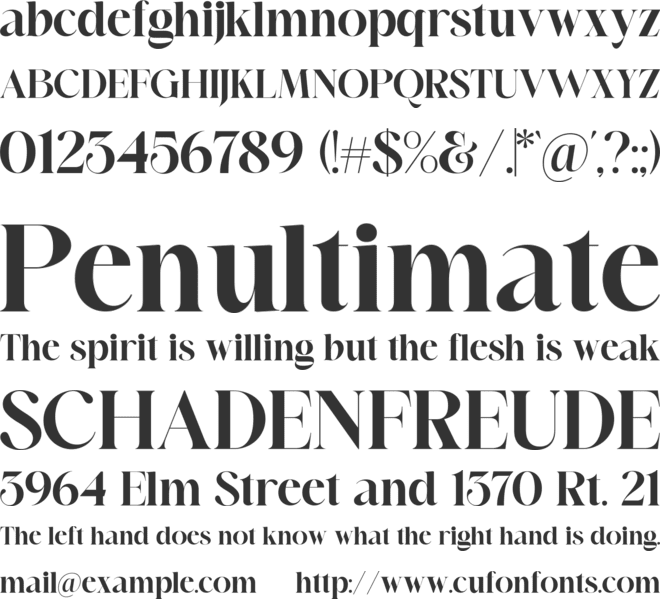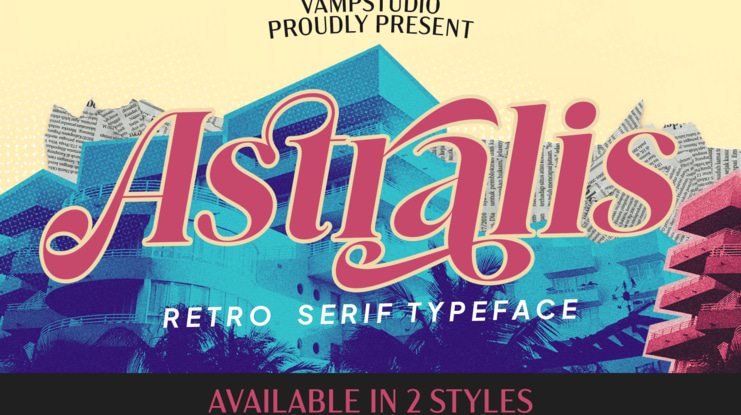
Astralis Font
Introducing Astralis Retro Display Font, a captivating typeface that takes you on a journey through time. With its regular and oblique styles, Astralis infuses your designs with the vibrant charm of yesteryears.